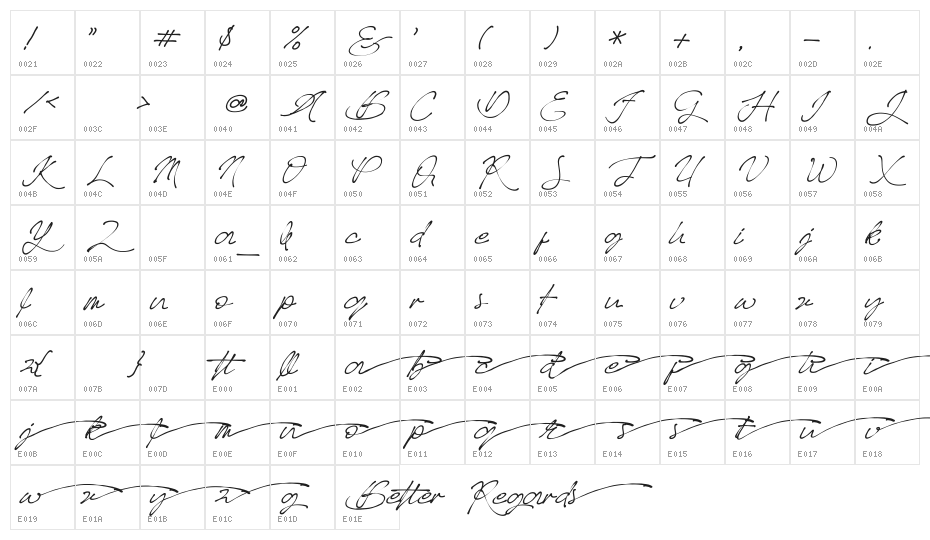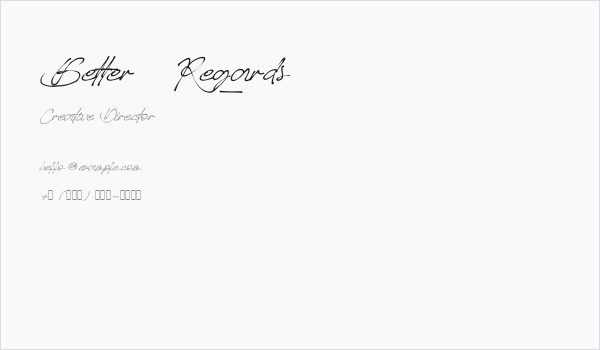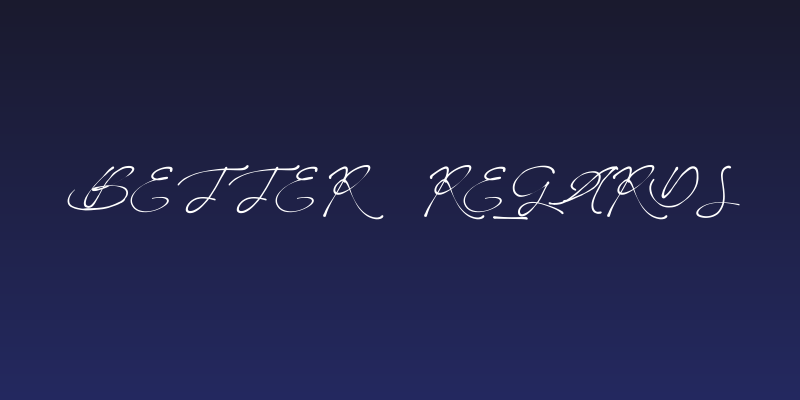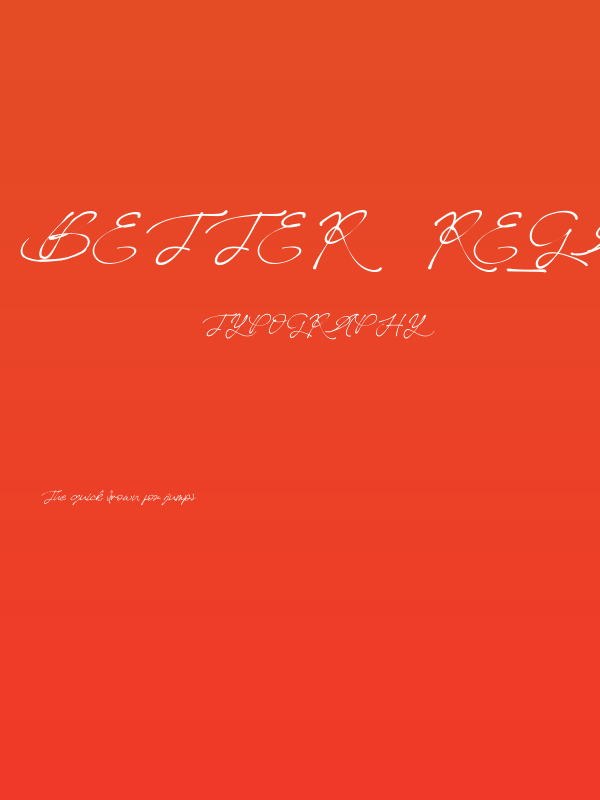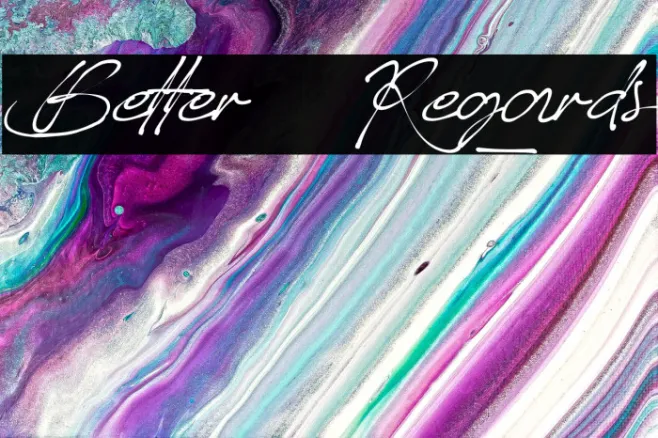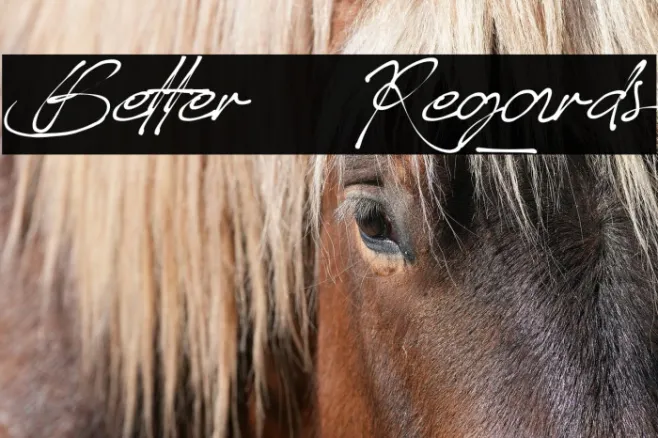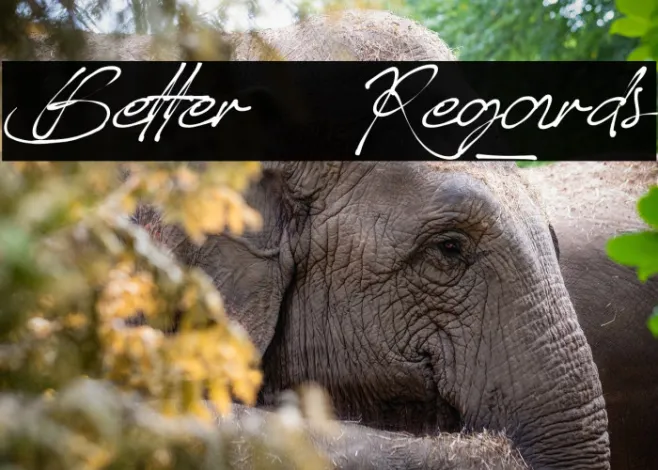
Better_Regards Font
Better_Regards Description
This elegant script font features a flowing, cursive style that mimics natural handwriting. The uppercase letters are beautifully looped and connected, while the lowercase letters maintain a consistent slant and fluidity. The font exudes a sense of sophistication and grace, making it ideal for formal invitations or elegant branding. The numerals and special characters are designed to match the overall aesthetic, ensuring a cohesive look across all text elements. The font's delicate strokes and smooth curves create a harmonious balance, perfect for projects that require a touch of refinement.
| Use Case | Invitations, Branding, Stationery |
| Proposed Projects | Ideal for wedding invitations, elegant branding, personal stationery, and upscale packaging. |